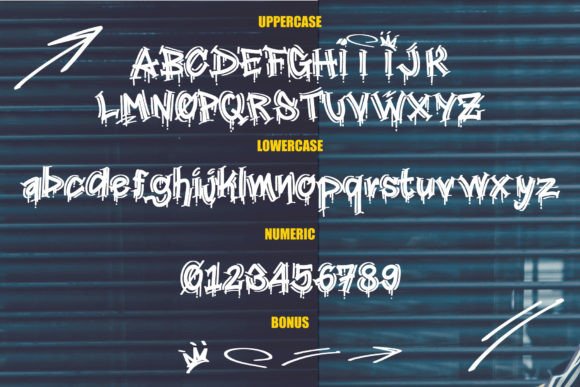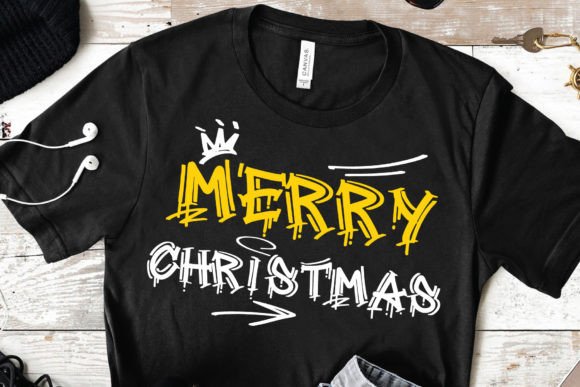
Introduction to Interactive Font
Have you ever been working on a creative project, and the perfect font just slips through your fingers? That’s exactly what happened to me last week, while designing a campaign for a popular streetwear brand. I was in desperate need of a font that could elevate the vibe of my design, and that’s when I stumbled upon the Interactive Font. This cool urban-styled outlined display font has been a game-changer for me, and I’m excited to share its awesomeness with you.
As designers, we’re always on the lookout for high-quality design resources that can take our projects to the next level. The Interactive Font is one such resource, offering a free download option with a transparent background that makes it easy to integrate into your designs. Whether you’re working on a digital campaign or a print project, this font is sure to add a touch of sophistication and style.
Key Features of Interactive Font
- High-Quality Vector Graphics: Our Interactive Font is designed with high-quality vector graphics, ensuring crisp and clear visuals for your creative project.
- Unique Character Set: Our Interactive Font includes a unique set of characters, including special symbols and glyphs, making it an ideal choice for creative projects that require a distinctive look.
Honest Review: Interactive Font
I recently stumbled upon the Interactive Font and I must say, it’s been a game-changer for my creative projects. ✨ The level of detail and intricacy in this font is truly impressive. The transparent background is a great touch, making it super easy to work with.
- High-quality design and detail ✨
- Great for creative projects and design resources
- Only suitable for digital use, may not work well for print materials ⚠️
- Some users may find the font too complex or overwhelming
Overall, I’m really impressed with the Interactive Font. It’s a valuable addition to my design toolkit and I’m excited to see how I can incorporate it into future projects.
Experiment with different font sizes, colors, and styles to create a visually appealing design. Use the font’s interactive features to engage your audience and make your design stand out.
The Interactive Font is ideal for creating interactive presentations, social media graphics, and marketing materials. Use it for educational purposes, product promotions, or event invitations.